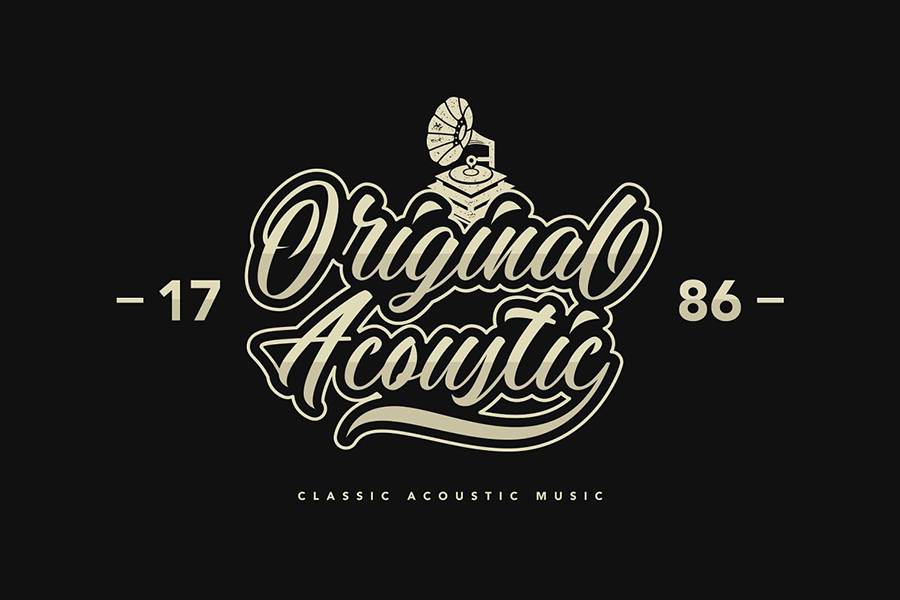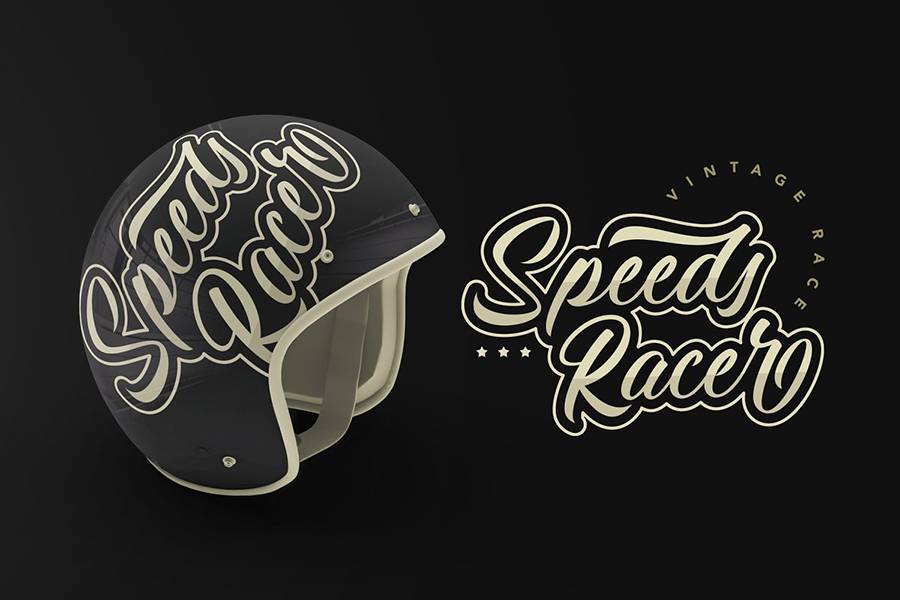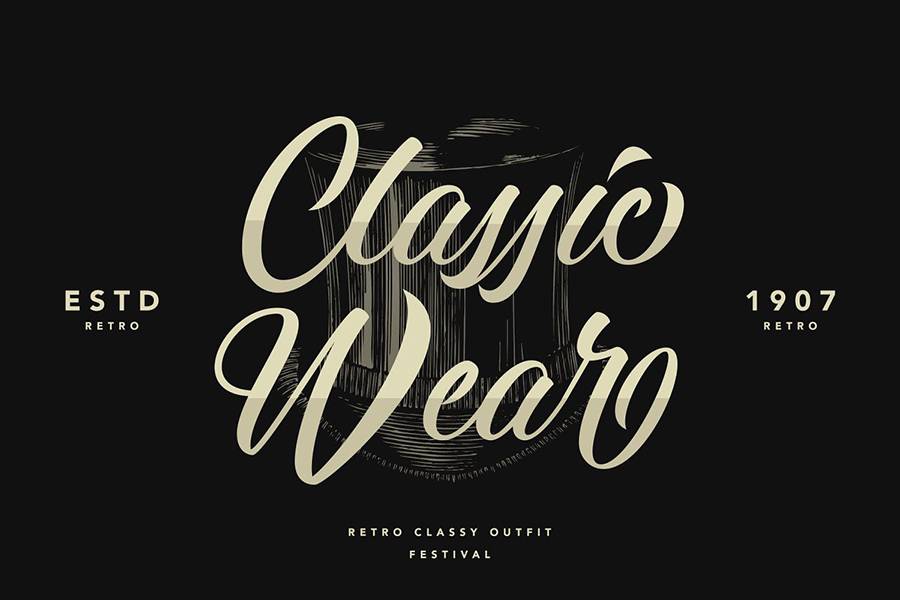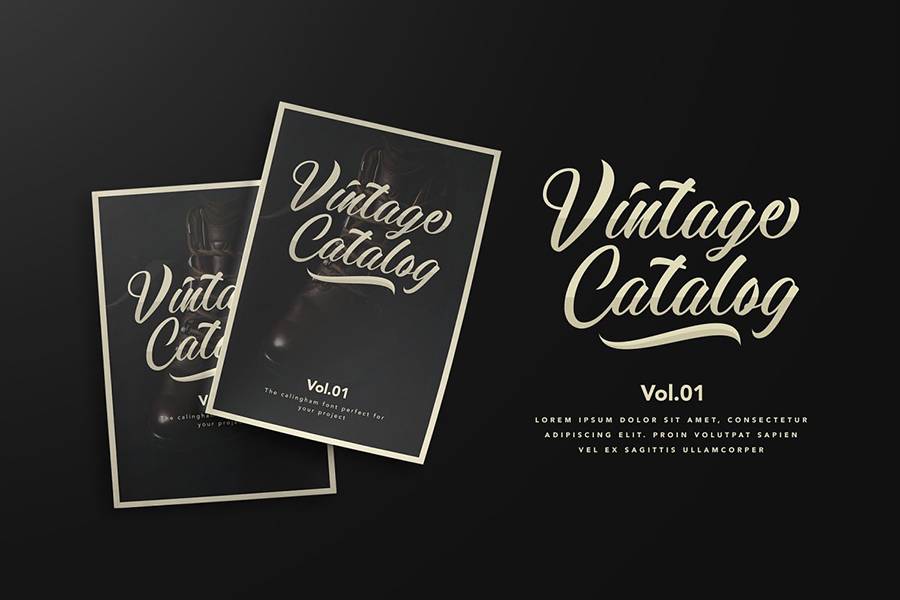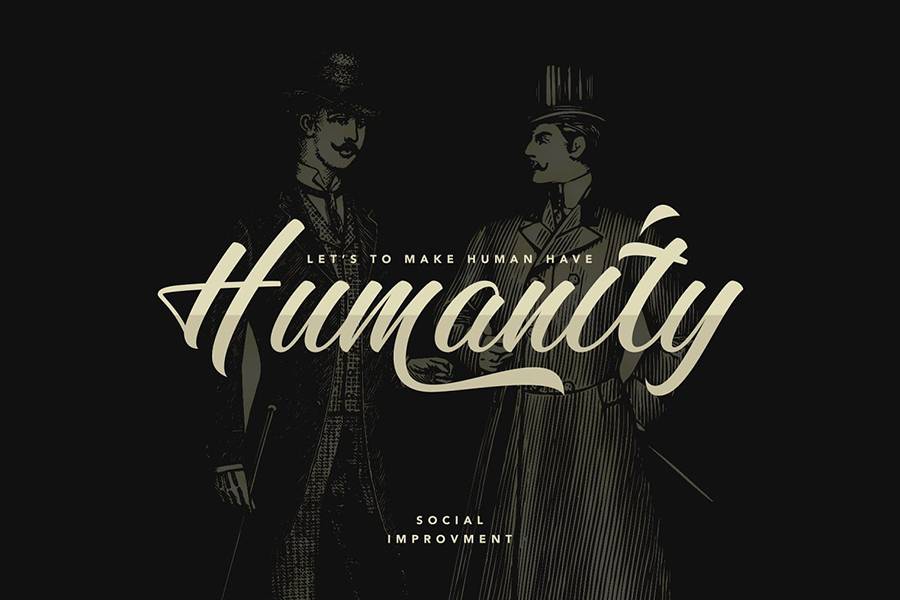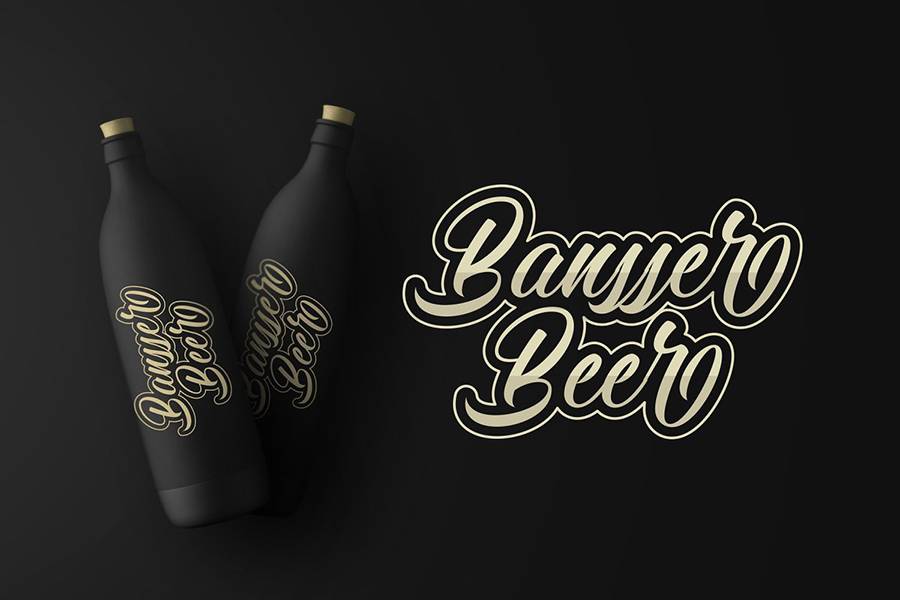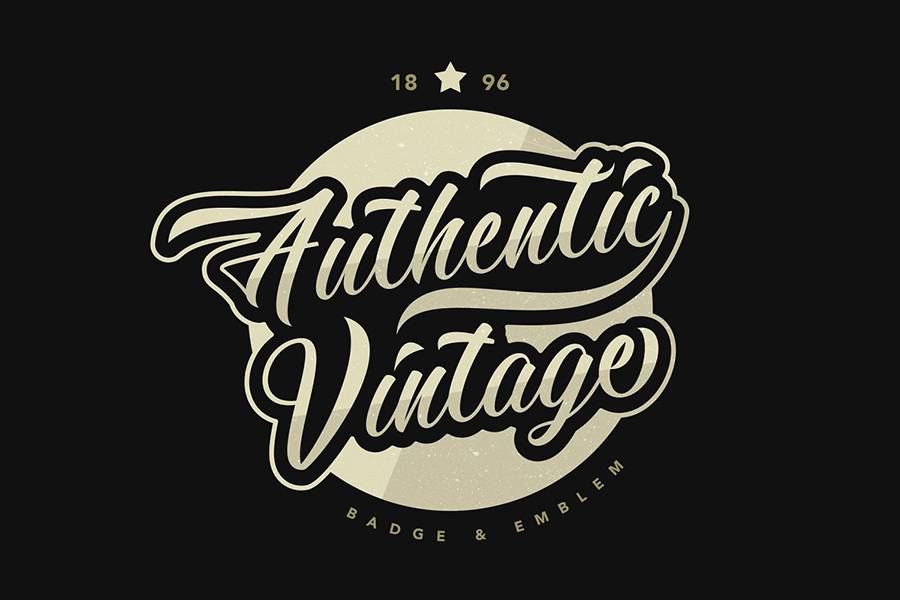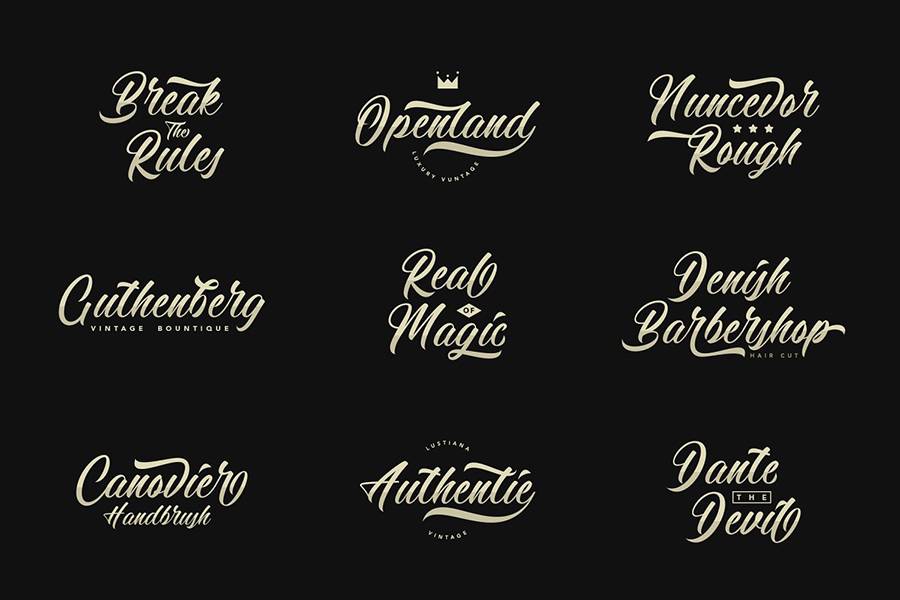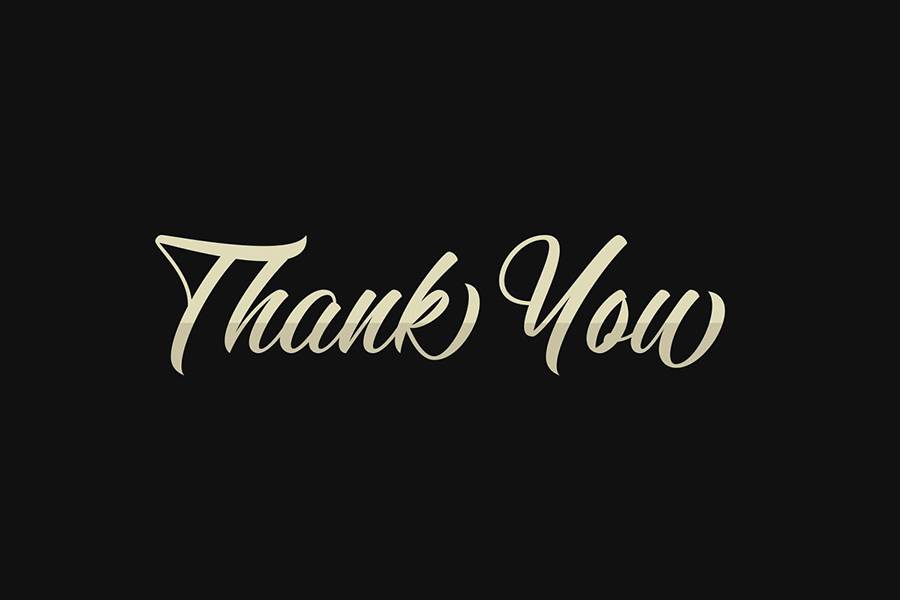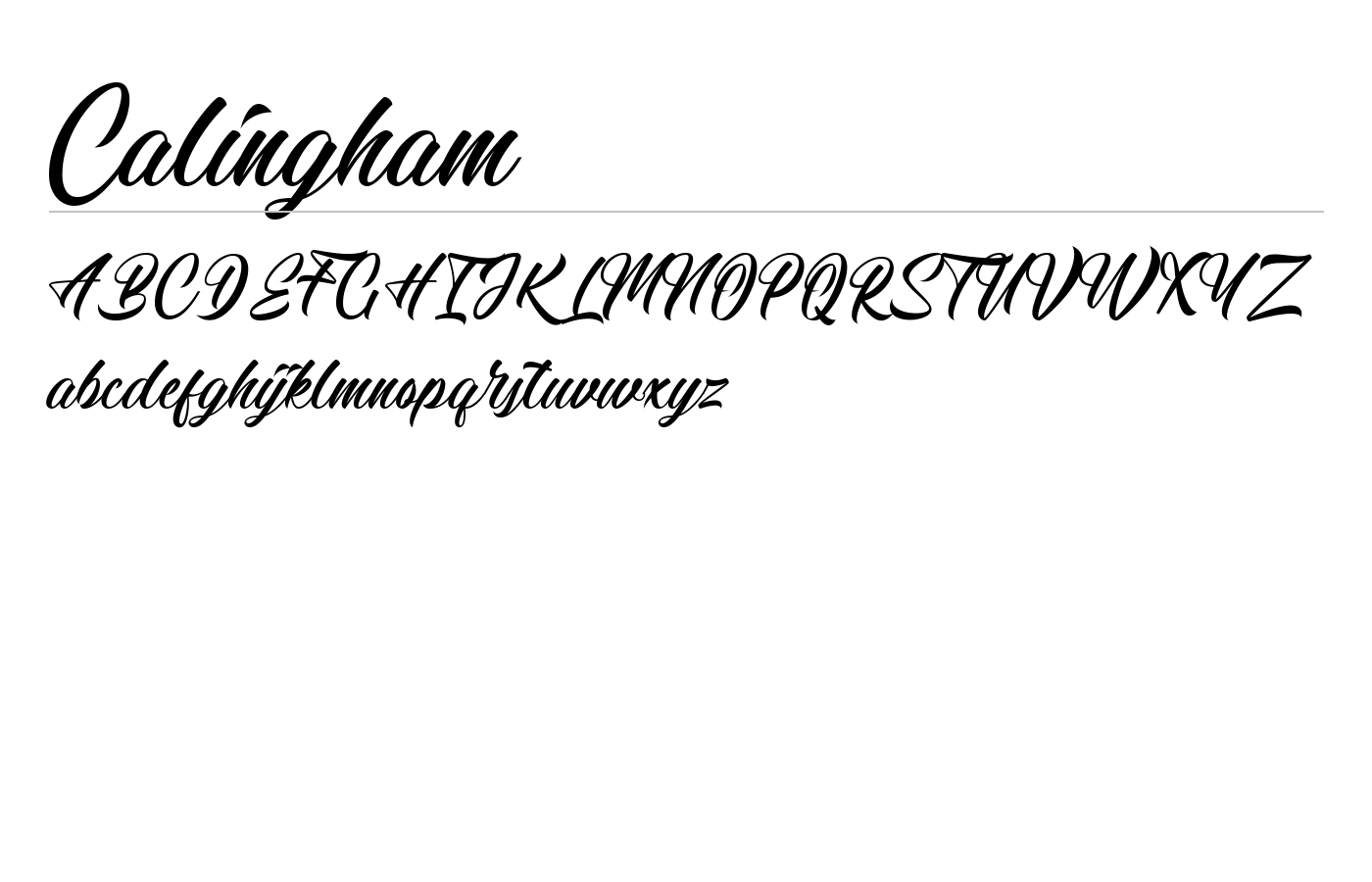
Calingham Script Demo is an elegant, fluid script font with a lively and expressive brush-like style, featuring smooth, flowing strokes and a slight slant. Its medium weight and high contrast between thick and thin lines give it a sophisticated yet approachable personality, making it ideal for branding, invitations, and any design seeking a touch of classic charm with modern flair. This font shines in headlines, logos, and decorative text where a graceful and personal feel is desired.
Calingham Script Demo
About Calingham Script Demo
| Font family | Calingham Script Demo |
| Release date | 2019-04-04 |
| Designer | Ahmad Khaidir |